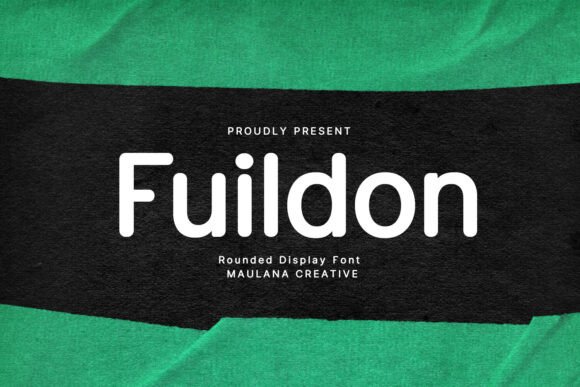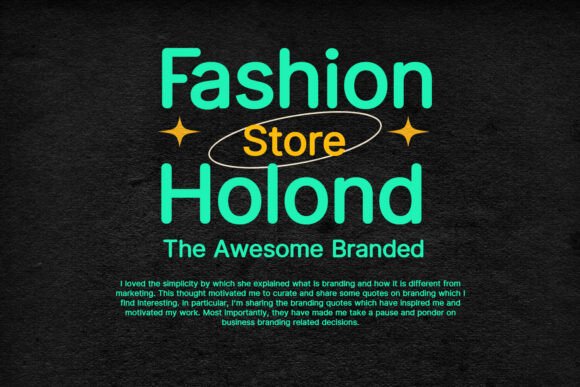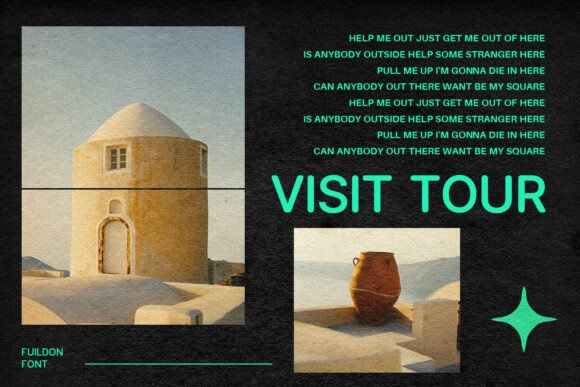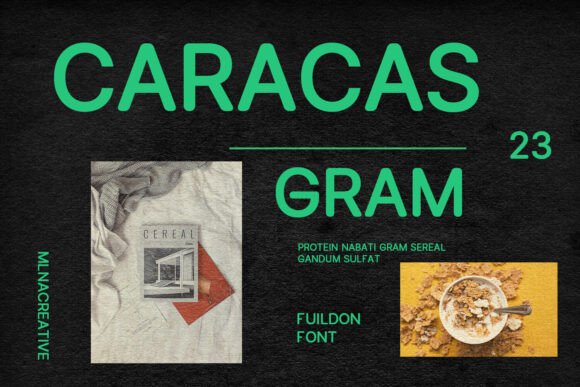
Fuildon Font: A Modern Rounded Font for Eye-Catching Logo Design
About the Fuildon Font
The wait is over! The incredible Fuildon Font is now available for your design toolkit. Fuildon is a smooth, rounded font with clean, modern letters. Its soft edges give it a friendly and easy-to-read look, making it great for bold and eye-catching designs!
Fuildon excels in display applications such as headlines, logos, and short-form text on posters or packaging. Its friendly personality makes it ideal for brands targeting a youthful or approachable audience. Avoid using Fuildon for large bodies of text or UI elements; its rounded forms can reduce readability in extended paragraphs.
Pairing Fuildon with a clean sans-serif like Open Sans for body copy creates a balanced and modern feel. For a more playful approach, consider a script font like Great Vibes for accents. Alternatively, a geometric sans-serif like Futura can add a touch of sophistication, contrasting Fuildon’s softness with crisp lines.
The overall personality of Fuildon is approachable and modern, with a subtle boldness that commands attention without being aggressive. It is versatile enough for various applications but thrives when used to create a strong visual impact in focused areas.